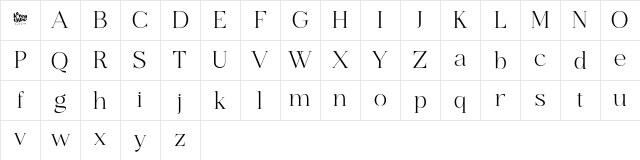
Complete Ethereal Demo Thin Regular glyph index. Displaying only characters natively supported by Ethereal Demo Thin Regular font.
Ethereal Demo Thin is a composed and adaptable typeface that performs quietly and consistently across a wide range of design contexts. Its slender proportions lend an understated elegance to any composition.